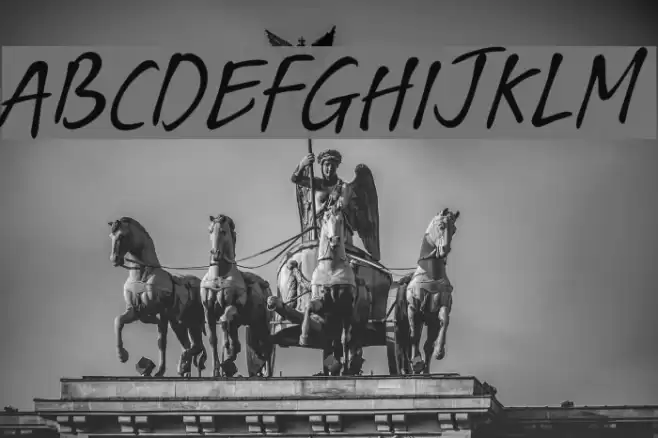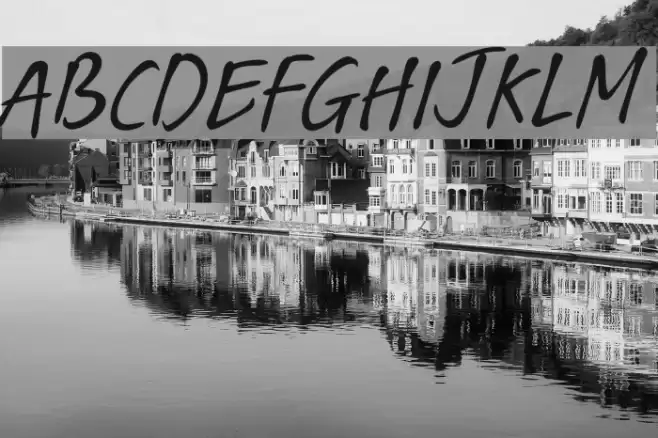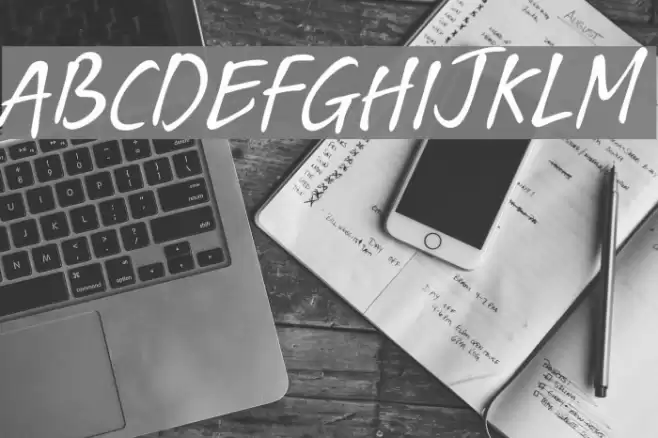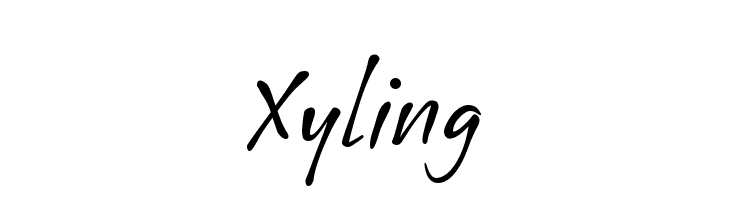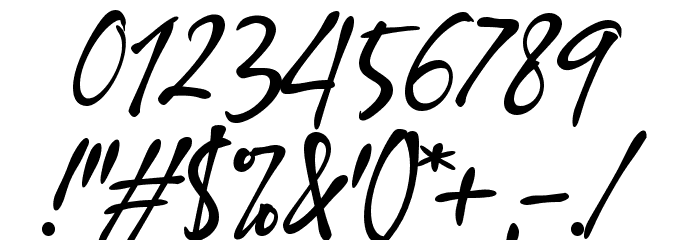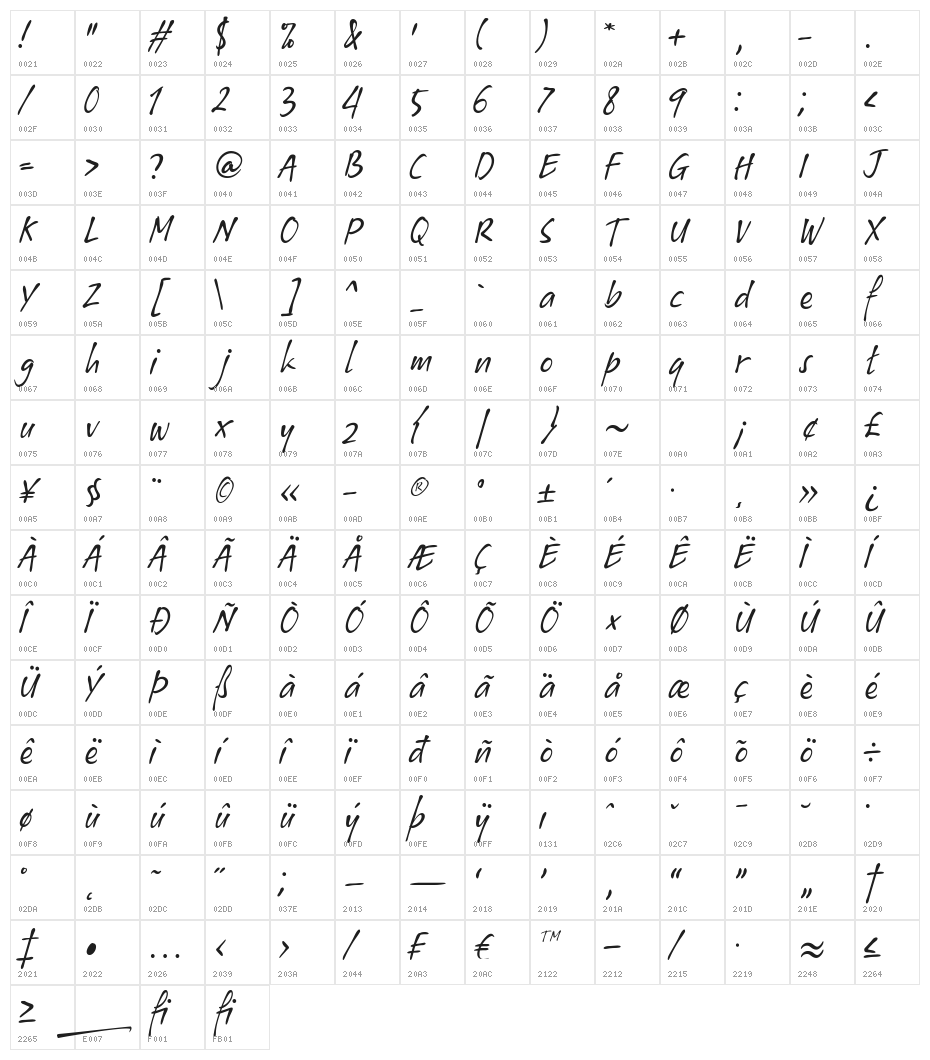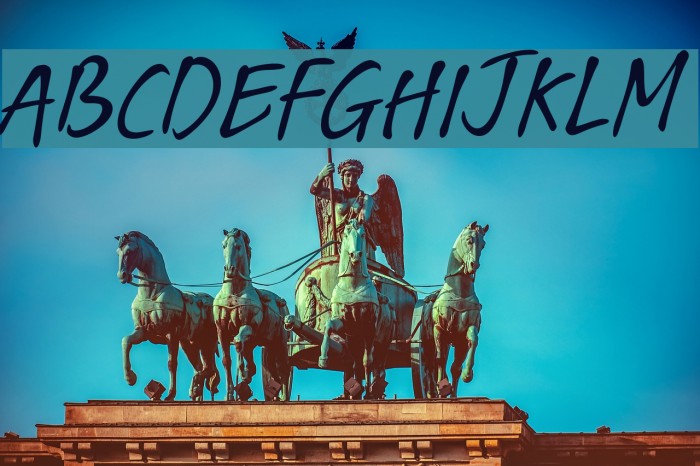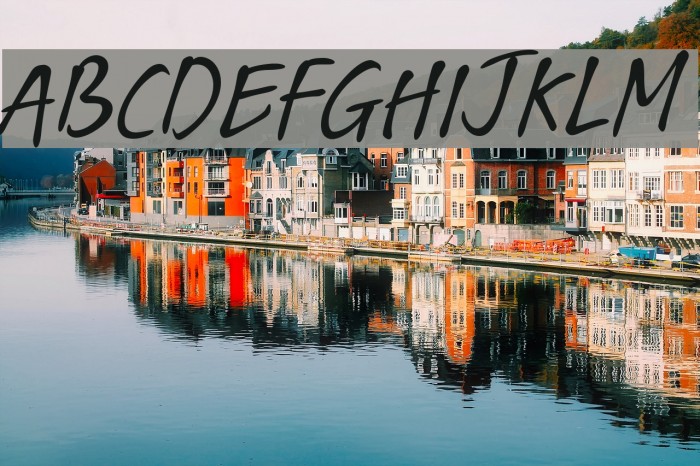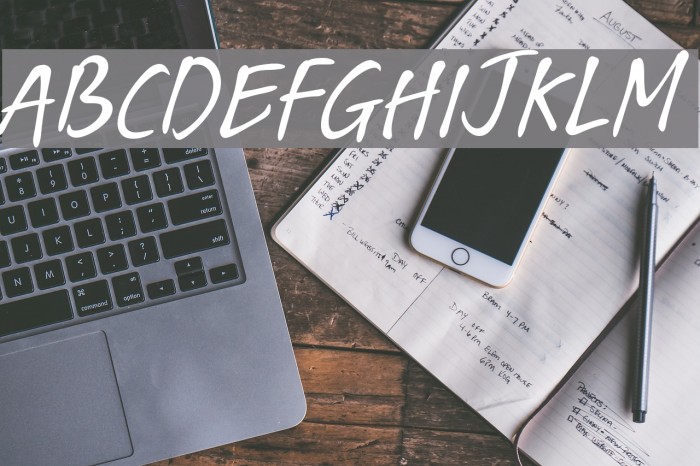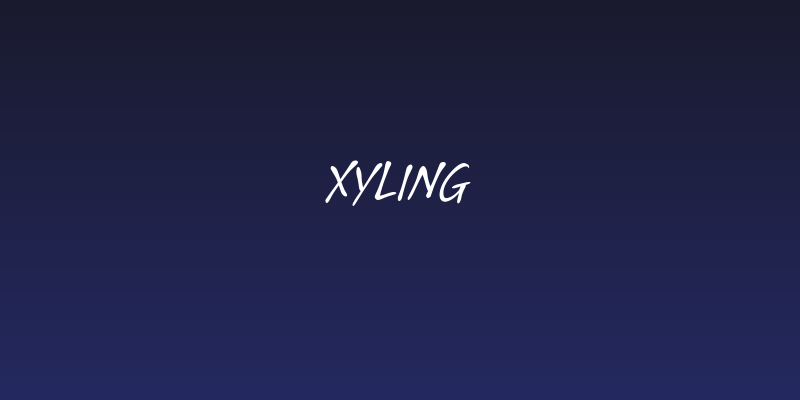
Xyling Font
Xyling Description
This font features a handwritten style with a casual and flowing appearance. The letters are slightly slanted, giving it a dynamic and lively feel. The strokes are smooth and consistent, with a medium thickness that maintains readability while adding a personal touch. The uppercase and lowercase letters are well-balanced, and the numbers and special characters complement the overall design. This font exudes a friendly and approachable vibe, making it suitable for various creative projects.
A casual, handwritten font with smooth, flowing strokes from Uncategorized fonts.
- Proposed Projects: Ideal for greeting cards, invitations, personal branding, and social media graphics.
- Overall Style: Casual
- Use Case: Headlines, Logos, Invitations